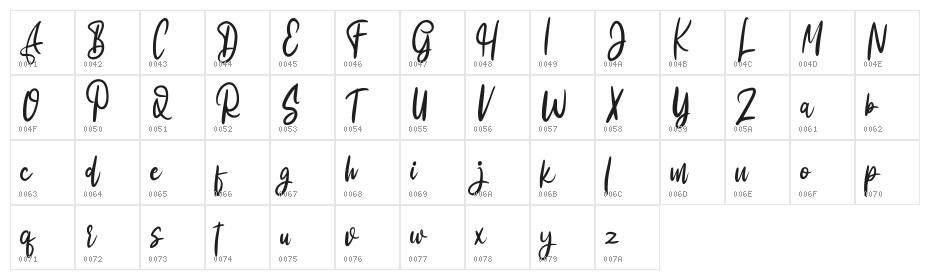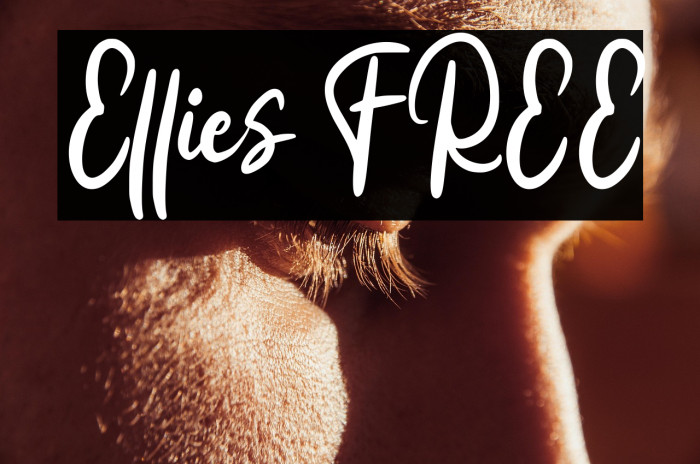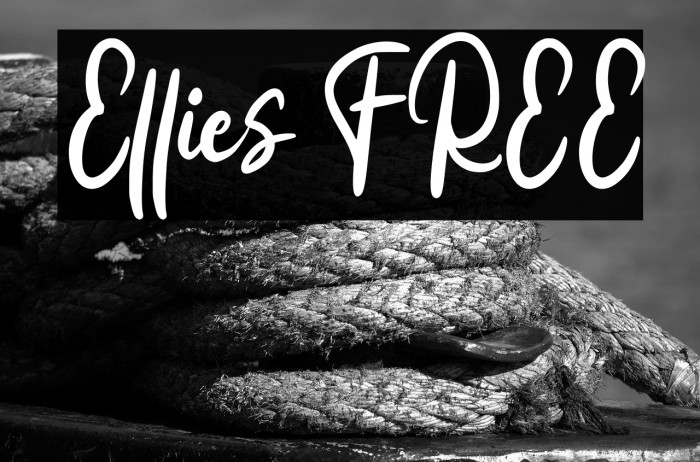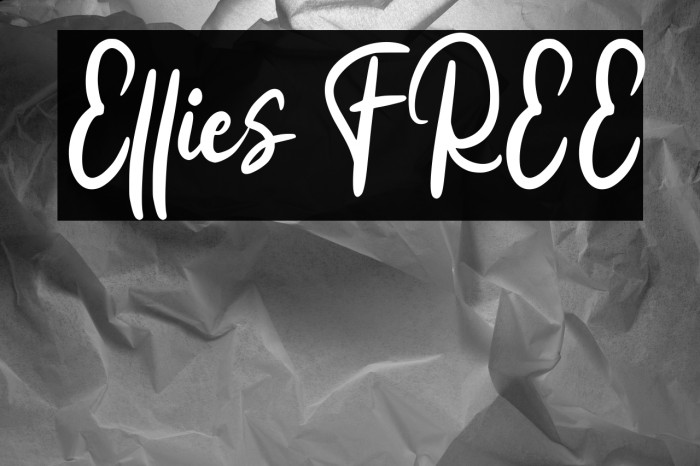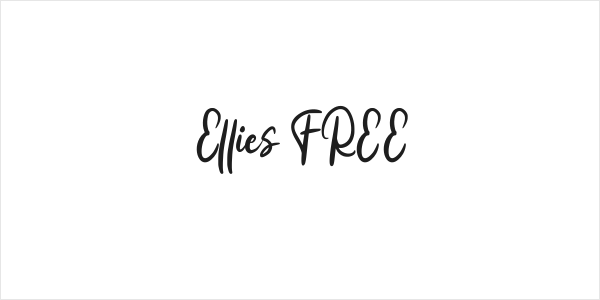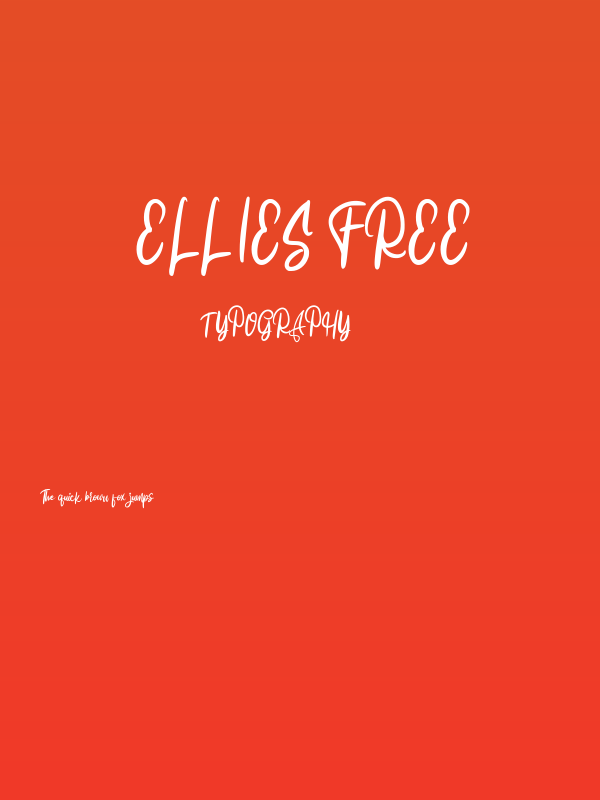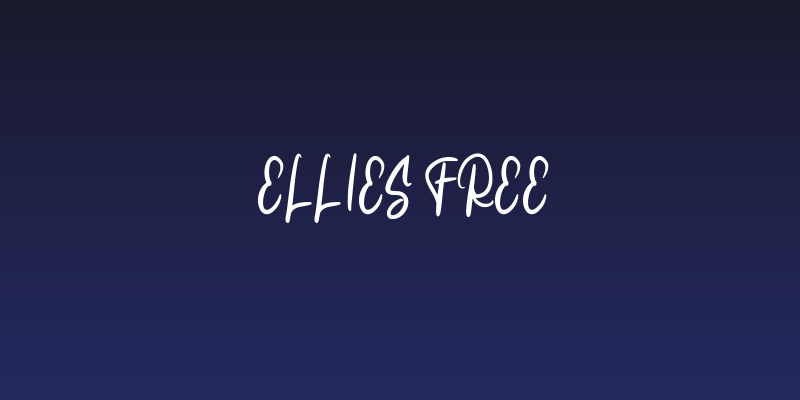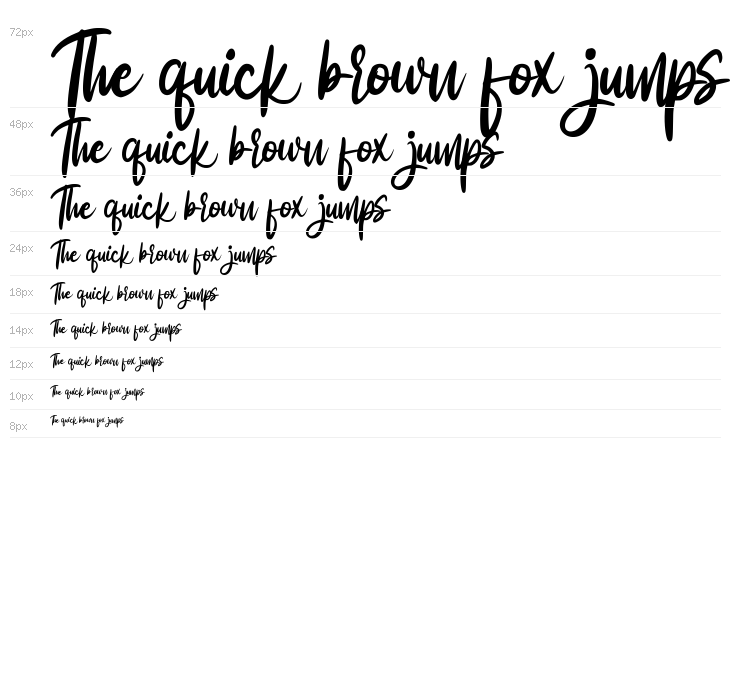
Ellies FREE Font
Ellies FREE Description
This font features a lively and expressive handwritten style with a playful and artistic flair. The letters are characterized by their fluid, cursive strokes that vary in thickness, creating a dynamic and engaging appearance. The uppercase and lowercase letters maintain a consistent style, with some letters featuring unique loops and swirls that add to the font's charm. The numbers and special characters are designed to match the overall aesthetic, ensuring a cohesive look across all text. This font is perfect for projects that require a personal touch or a creative, informal vibe.
Use CaseLogos, Headlines, Creative projects
Proposed ProjectsIdeal for greeting cards, invitations, branding, social media graphics, and creative projects.